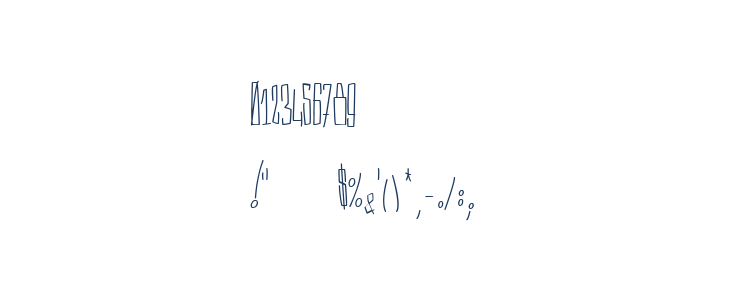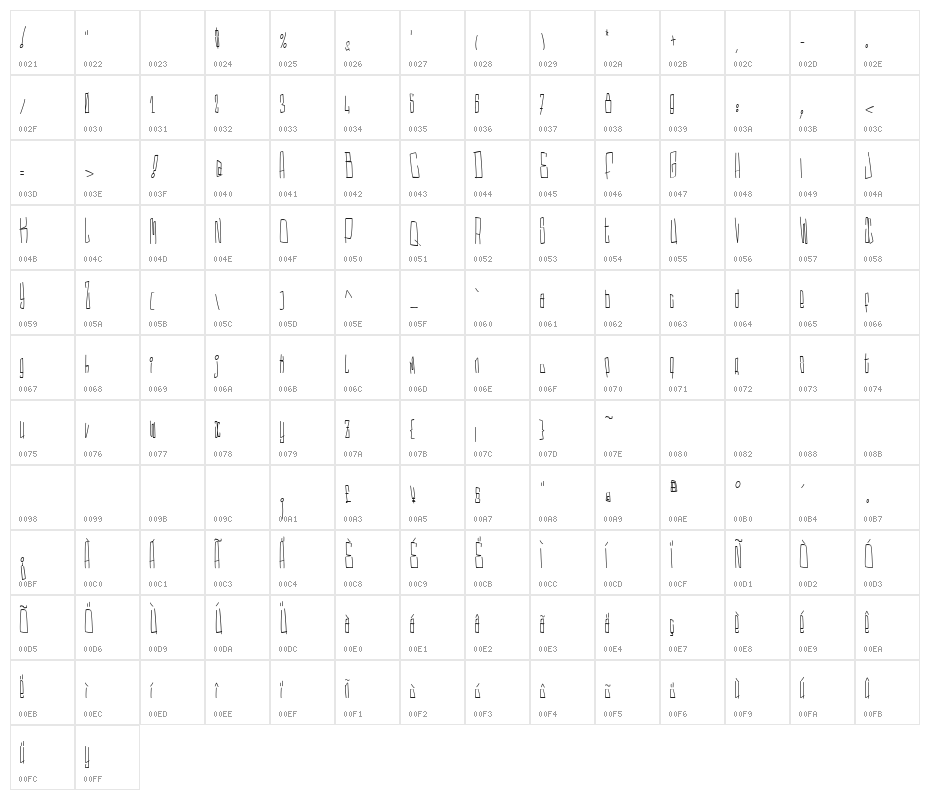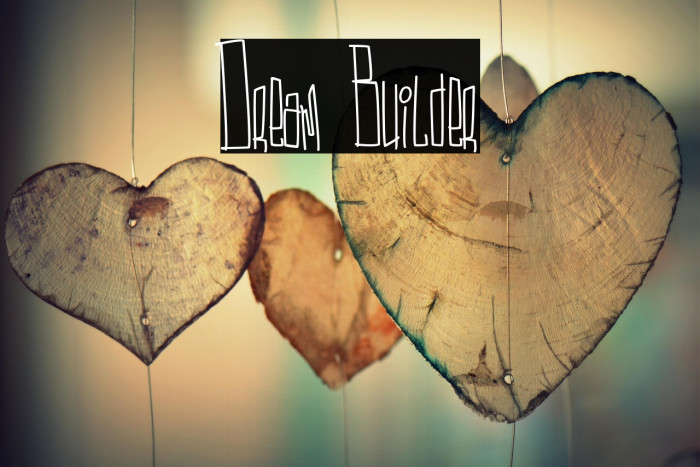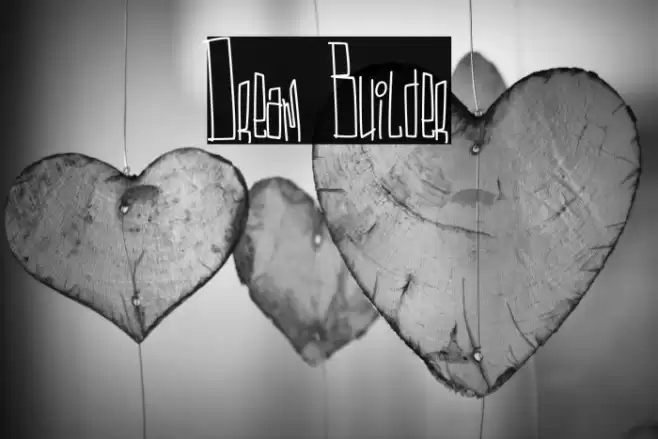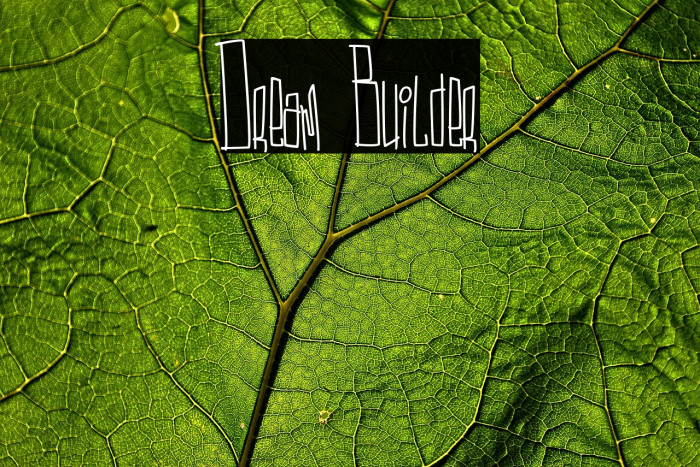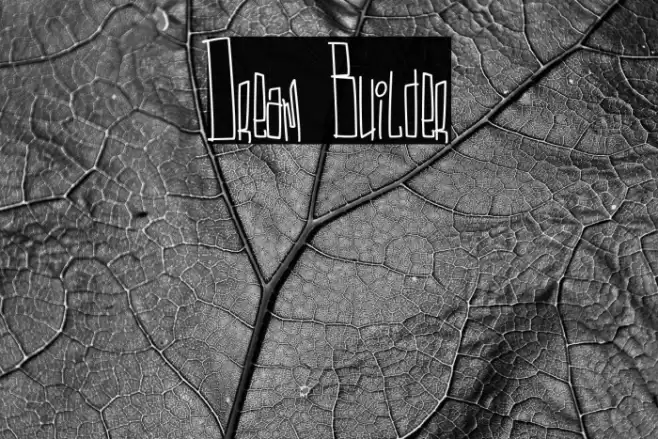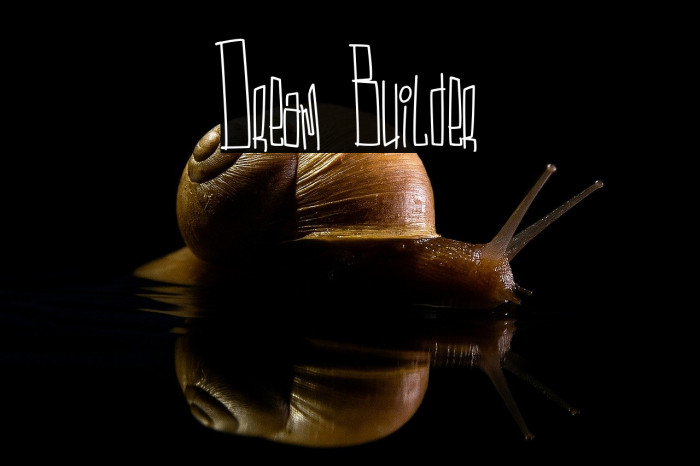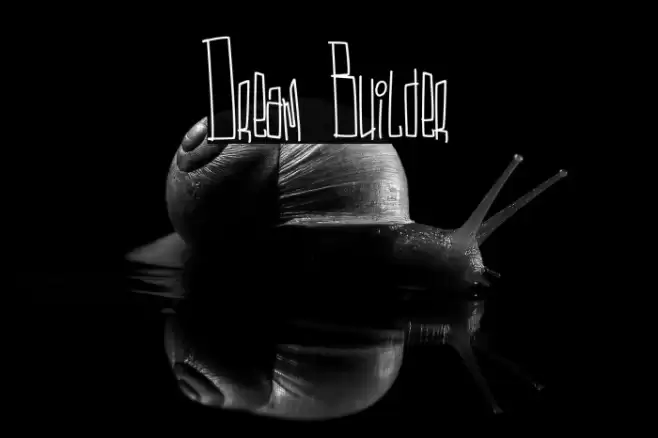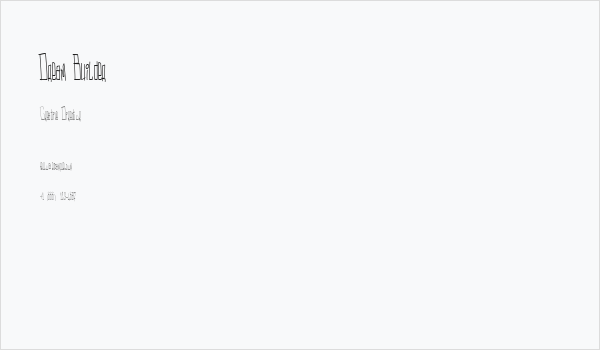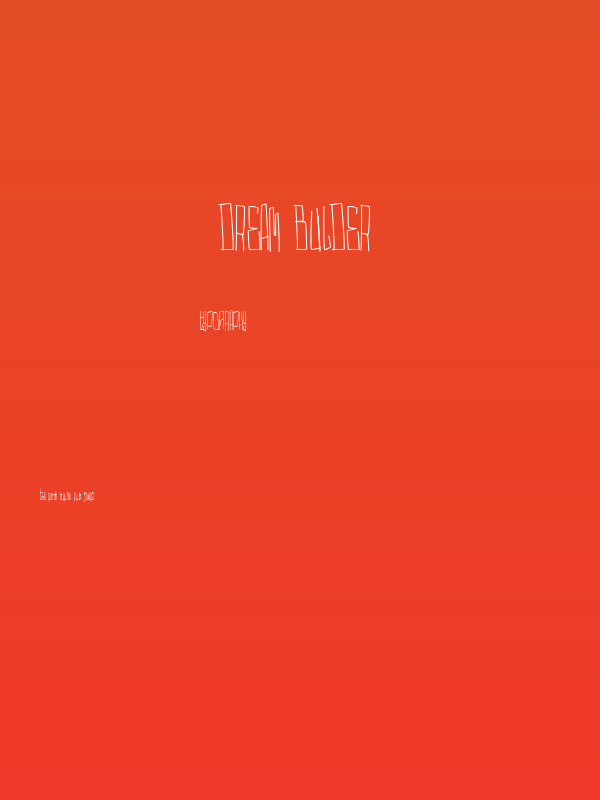
Dream Builder Font
Dream Builder Description
This font features a unique, hand-drawn style with elongated and narrow characters. The letters have a playful, whimsical appearance, characterized by uneven lines and varying stroke thicknesses. The uppercase letters are tall and slender, while the lowercase letters maintain a consistent height, adding to the quirky aesthetic. Numbers and special characters follow the same design principles, ensuring a cohesive look across all glyphs. The font's irregularity and artistic flair make it stand out, offering a creative and informal vibe.
| Use Case | Logos, Posters, Creative projects |
| Proposed Projects | Ideal for creative projects such as children's books, artistic posters, and playful branding. |